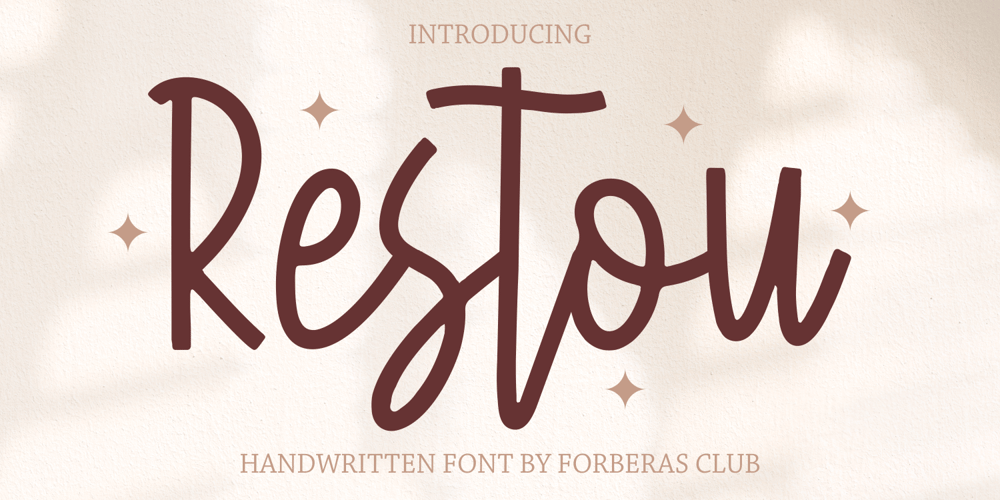
Restou Font Family was designed by ANGGI HERMAWAN and published by Forberas Club. Restou contains 1 styles and family package options. Restou is handwritten font for children theme, playful event, wall type, your signature, or a poster. This font is for personal use.